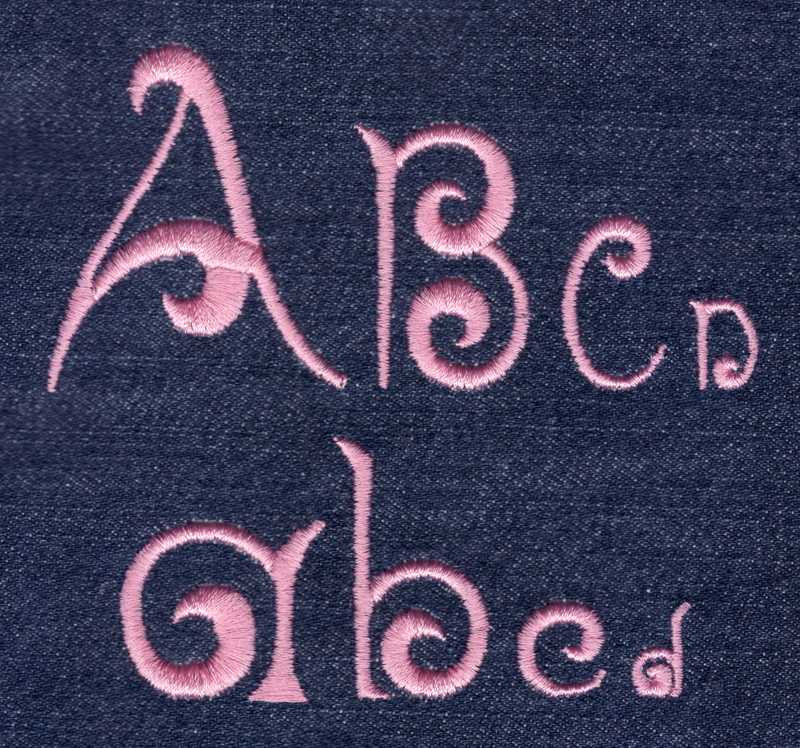
474 Brittany Satin Font
Brittany Satin Font comes in 0.5", 1", 1.5" and 2" heights based on the capital "A". All sizes are included in the purchase price. All characters are finished in Satin Stitch. Includes uppercase letters, lowercase letters, numbers and four punctuation marks.